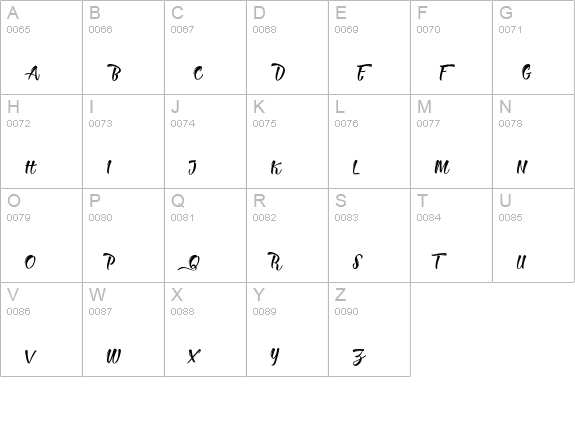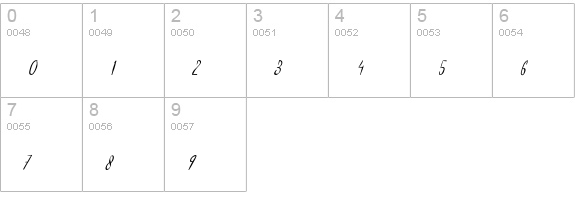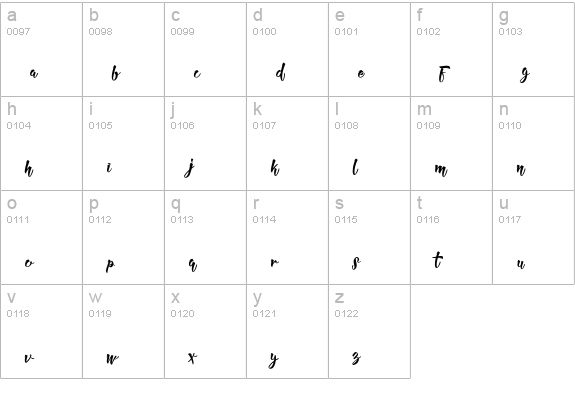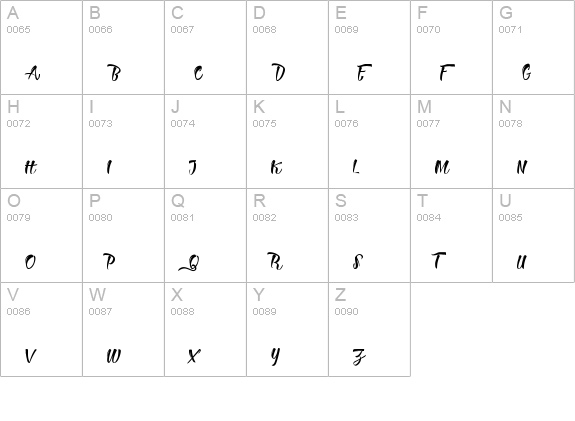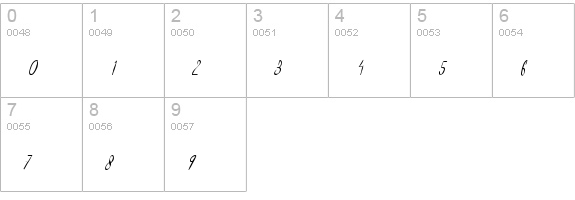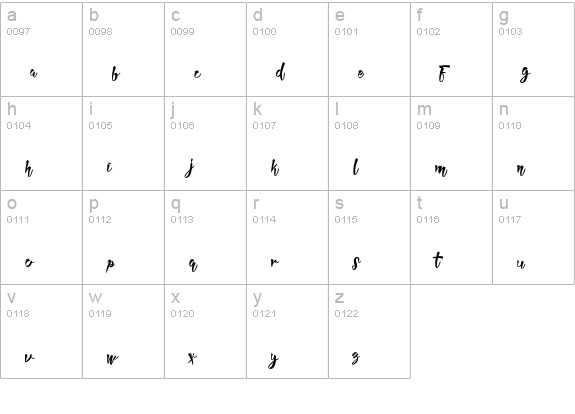
Jailheart Font Details
Jailheart font is a bold and edgy typeface that exudes a rebellious spirit and a strong presence. With its sharp angles and distinctive letterforms, this font captures attention and demands to be noticed. Ideal for headlines, posters, and branding projects, Jailheart adds a touch of attitude and boldness to any design. What sets Jailheart font apart is not only its unique design but also the fact that it is available for free. Yes, you read that right – Jailheart font is freely available to download at FontsMarket.com. So go ahead and unleash your creativity with this striking typeface without any cost involved. Stand out from the crowd and make a statement with Jailheart font today!